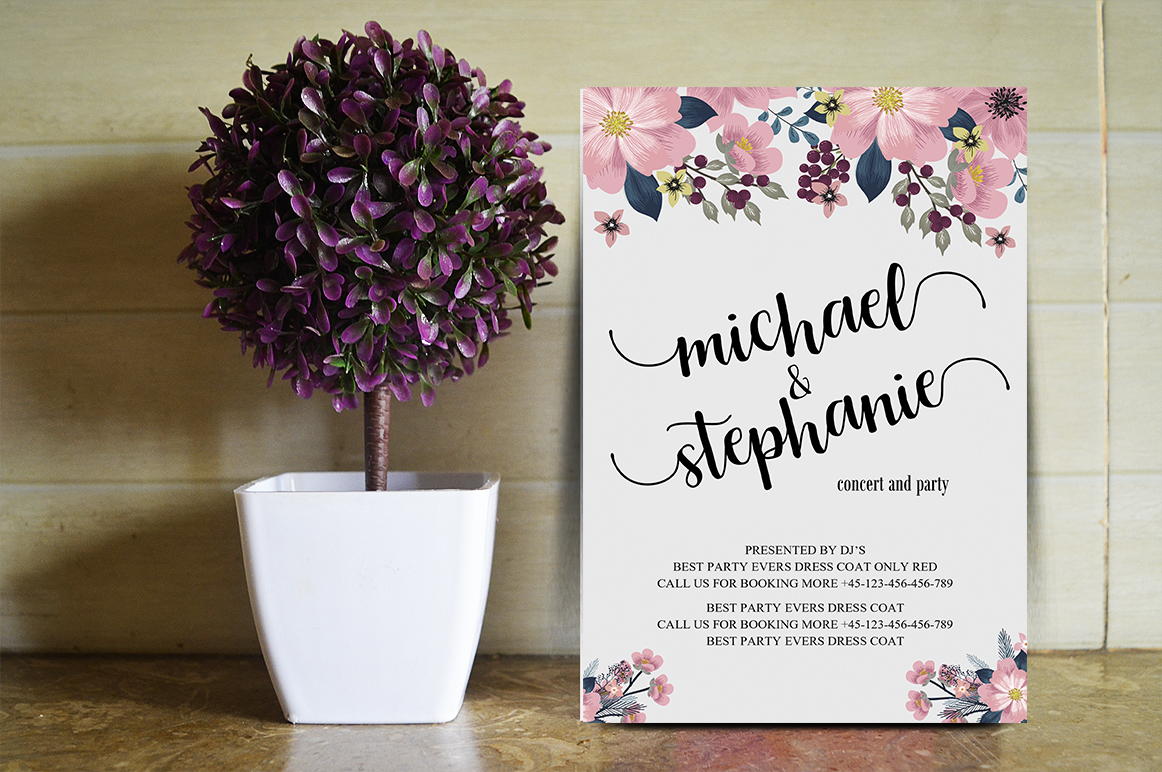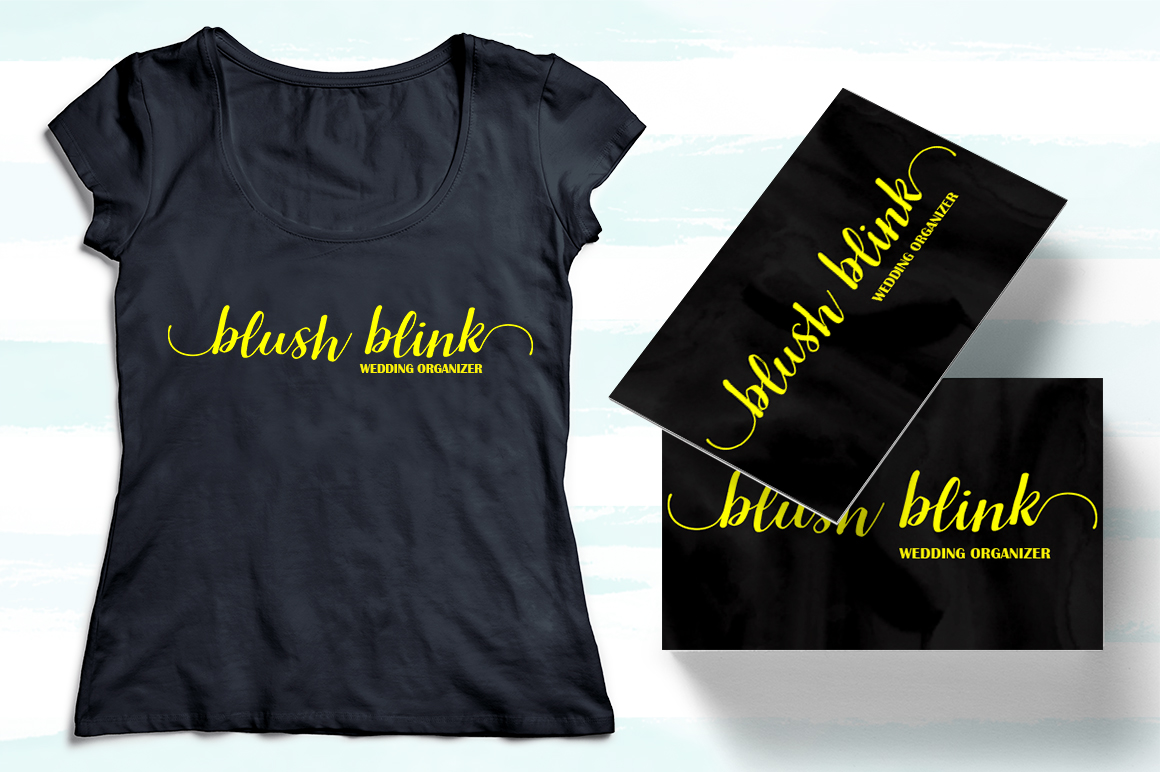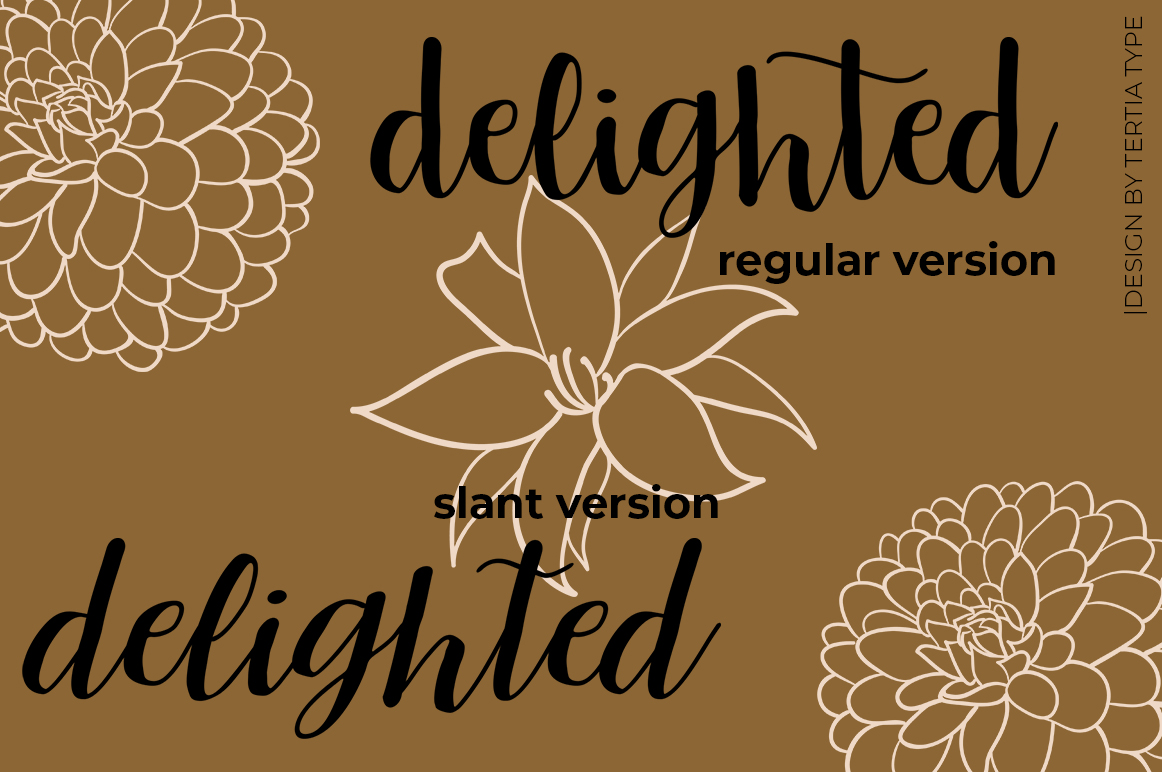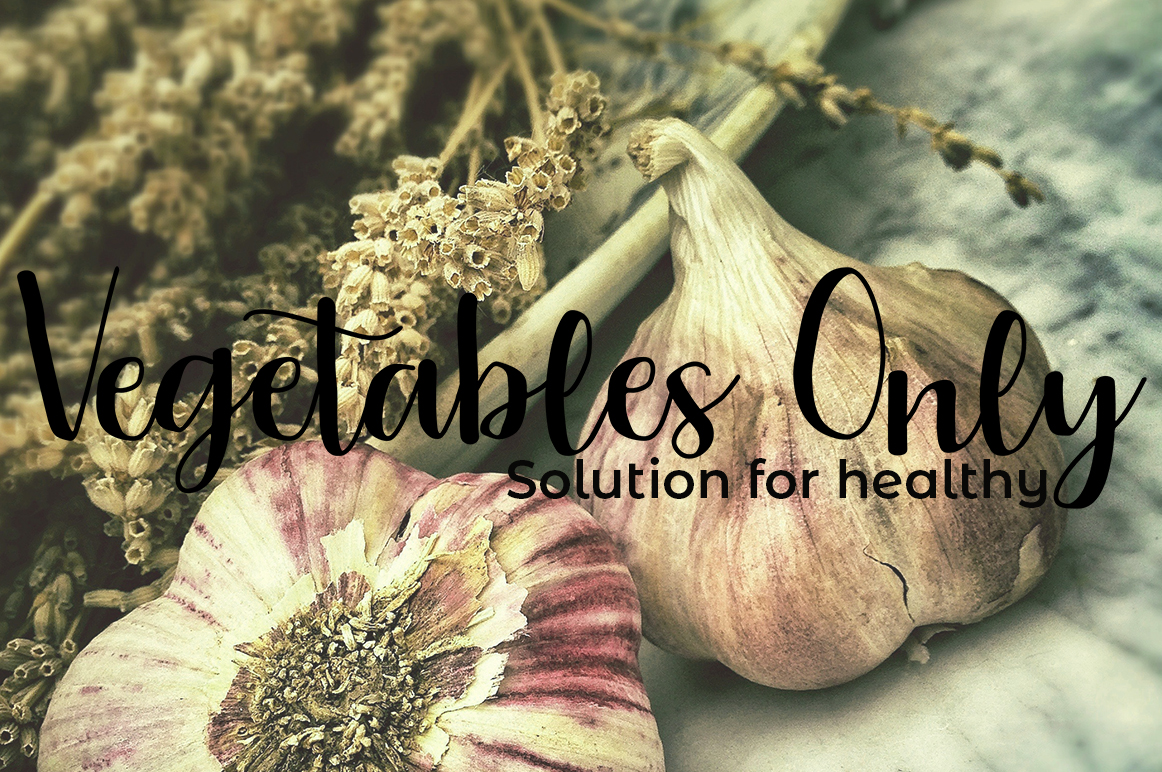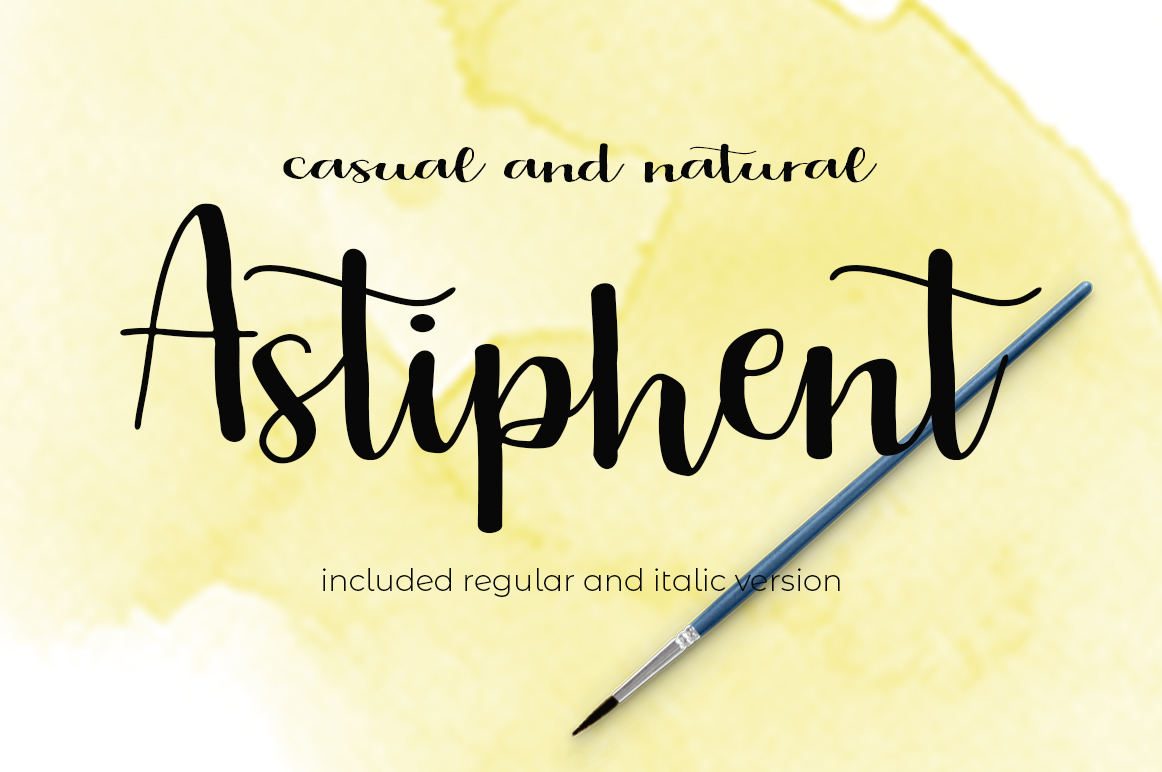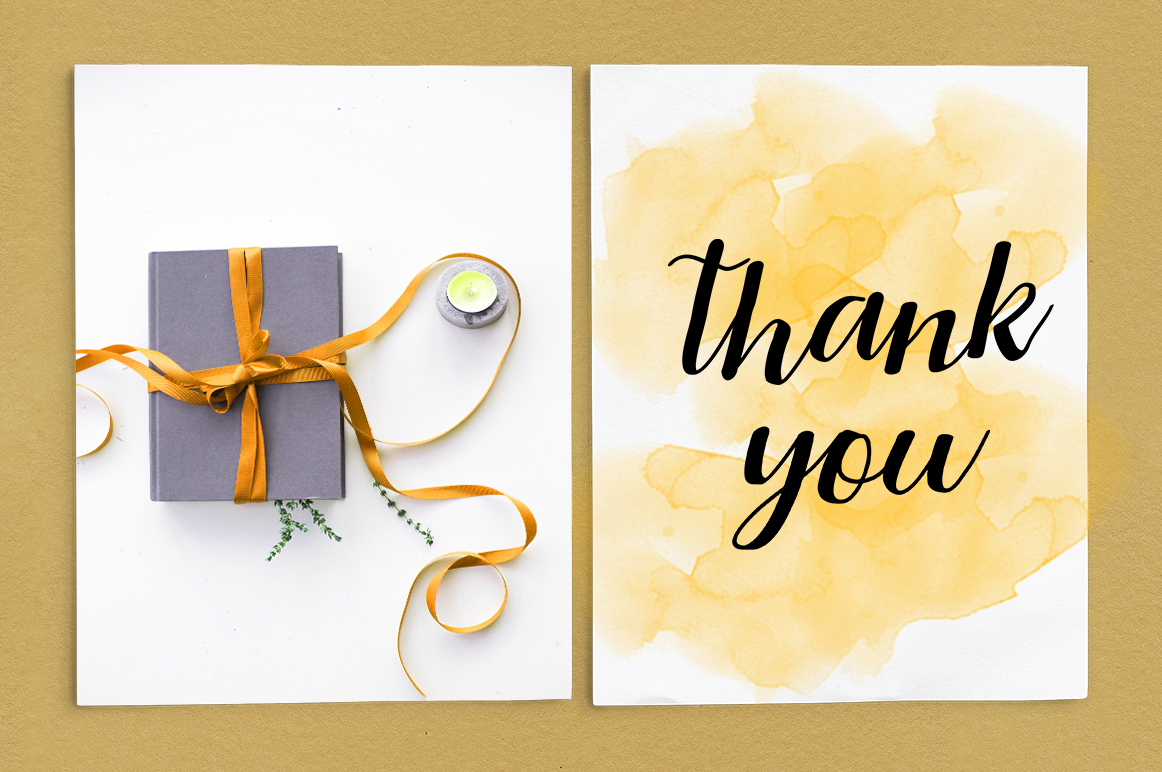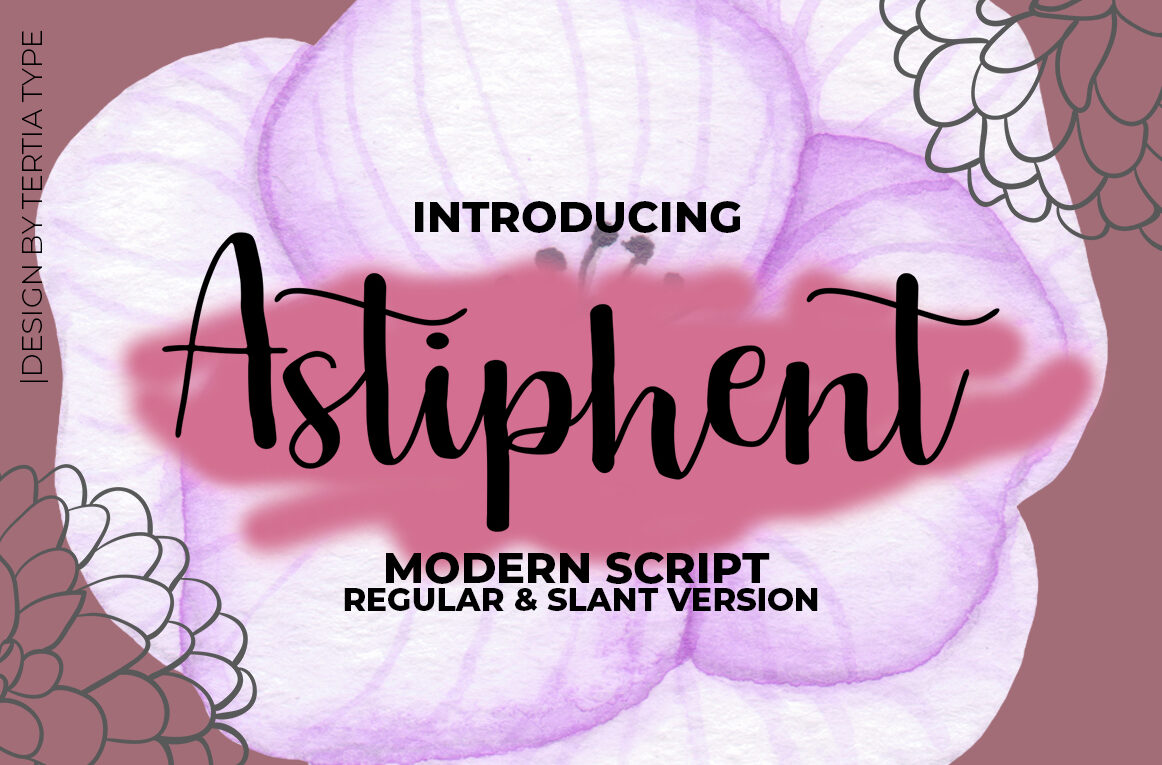
Introducing Astiphent Font: Elevate Your Designs with Elegance
Are you looking for a font that can add a touch of sophistication and elegance to your typographic projects? Look no further than Astiphent Font. This beautiful brush typeface is designed to give your designs a wholly realized and refined appeal, making it perfect for a wide range of digital and print projects.
What is Astiphent Font?
Astiphent Font is a stunning script font that features a unique brush-style design. With its flowing lines and delicate strokes, this font is sure to capture the attention of your audience. Whether you’re working on a logo, brochure, or website, Astiphent Font is the perfect choice for designers and crafters who want to add a touch of elegance to their designs.
Key Features of Astiphent Font
So, what makes Astiphent Font so special? Here are just a few of its key features:
- Tons of Start and Ending Swashes: Astiphent Font comes with a wide range of start and ending swashes, allowing you to customize your text and add a touch of personality to your designs.
- Stylistic Alternates: With stylistic alternates, you can easily switch between different letterforms and create a unique look for your text.
- Slanted Version: The slanted version of Astiphent Font adds a touch of sophistication and elegance to your designs, making it perfect for body text and headings.
Why Choose Astiphent Font?
So, why should you choose Astiphent Font for your next design project? Here are just a few reasons:
- Elegant Appeal: Astiphent Font has a unique and elegant appeal that will elevate your designs and make them stand out from the crowd.
- Versatility: With its range of swashes, stylistic alternates, and slanted version, Astiphent Font is perfect for a wide range of digital and print designs, from logos and brochures to websites and social media graphics.
- Easy to Use: Astiphent Font is easy to use and can be easily integrated into your design workflow.
How to Use Astiphent Font in Your Designs
Using Astiphent Font in your designs is easy. Here are a few tips to get you started:
- Pair it with a Sans-Serif Font: Pair Astiphent Font with a sans-serif font to create a beautiful contrast and add visual interest to your designs.
- Experiment with Swashes: Don’t be afraid to experiment with the start and ending swashes to add a touch of personality to your text.
- Use it for Headings and Titles: Astiphent Font is perfect for headings and titles, where its elegant appeal can really shine.
In conclusion, Astiphent Font is a beautiful brush typeface that is perfect for designers and crafters who want to add a touch of elegance and sophistication to their designs. With its range of swashes, stylistic alternates, and slanted version, Astiphent Font is a versatile and easy-to-use font that can be used for a wide range of digital and print designs. So why not give it a try and see how it can elevate your designs?
Tips and Tricks for Using Astiphent Font
Here are a few more tips and tricks for using Astiphent Font in your designs:
- Adjust the Tracking: Adjust the tracking of Astiphent Font to create a more open or closed look, depending on your design needs.
- Use it for Body Text: While Astiphent Font is perfect for headings and titles, it can also be used for body text to create a more elegant and refined look.
- Experiment with Colors: Don’t be afraid to experiment with different colors and textures to add depth and visual interest to your designs.